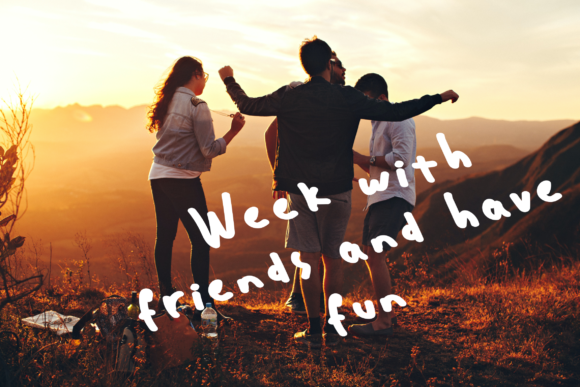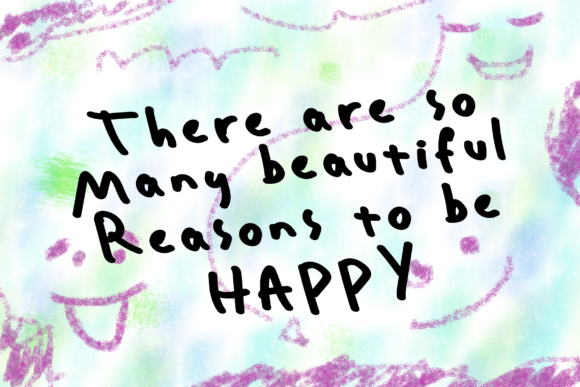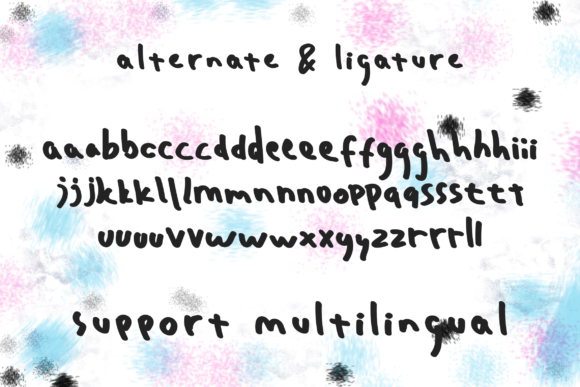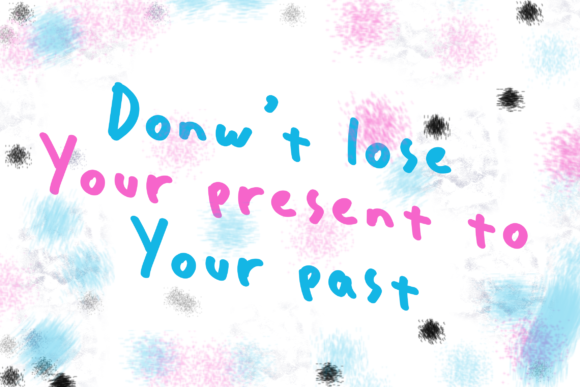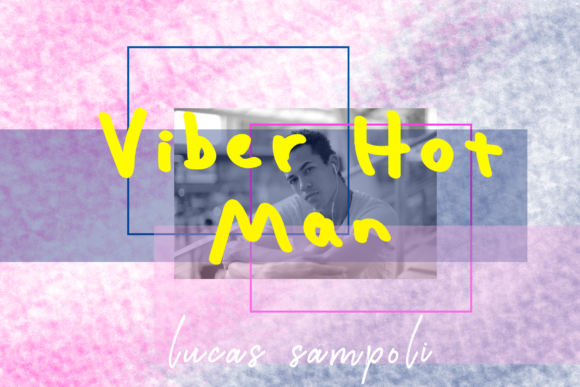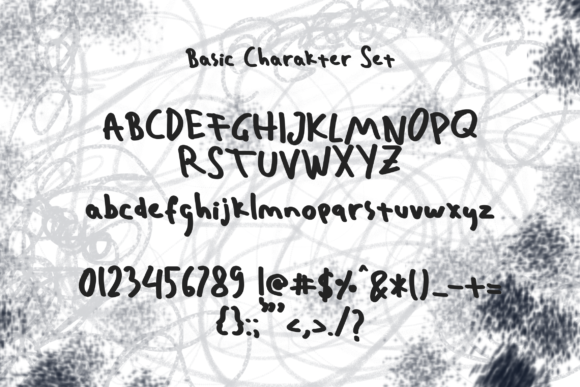
The Blankide Font: A Cute and Quirky Companion for Your Design Journey
I’ll never forget the time I was working on a whimsical craft project, pouring my heart and soul into creating the perfect design. But, as I sat staring at my screen, I realized I was stuck – struggling to find the right font to bring my vision to life. That’s when I stumbled upon the Blankide font, and it was love at first sight! 💕
This cute and quirky handwritten font has a natural and unique style that makes it incredibly fitting for a large pool of designs. The only limit is your imagination! In this article, I’ll share my experience with Blankide, its features, and how to make the most of it in your designs.
An Honest Review of Blankide Font
What I Love About Blankide ✨
- ✅ Unique and quirky handwritten style that adds a personal touch to any design
- ✅ Versatile and adaptable to various design projects, from crafts to branding
- ✅ Easy to pair with other fonts, thanks to its distinct personality
- ⚠️ Some letters, like ‘Q’ and ‘q’, have a slightly different design, which might take getting used to
- ⚠️ Limited availability of extended language support
- Experiment with OpenType features, such as stylistic alternates, to add more personality to your text
The Story Behind Blankide Font
While the actual creator of Blankide remains a mystery, it’s clear that this font was designed with love and care. Imagine a designer, sitting at their desk, surrounded by scraps of paper, pens, and coffee cups, trying to craft the perfect handwritten font. They experimented with various letterforms, played with different styles, and carefully refined each character until Blankide was born.
Q: What type of projects is Blankide best suited for?
A: Blankide is incredibly versatile and can be used in a wide range of projects, from crafts and DIY designs to branding and marketing materials.
Q: Can I combine Blankide with other fonts?
A: Absolutely! Blankide has a distinct personality that pairs well with many other fonts. Experiment with different combinations to find the perfect match for your design.